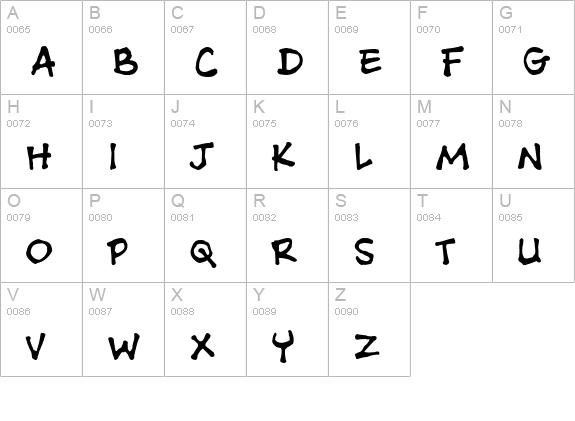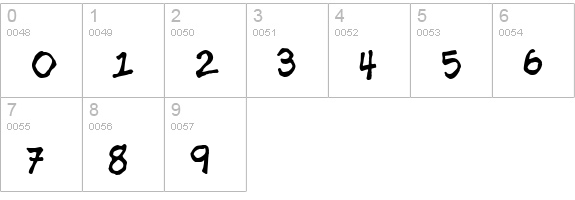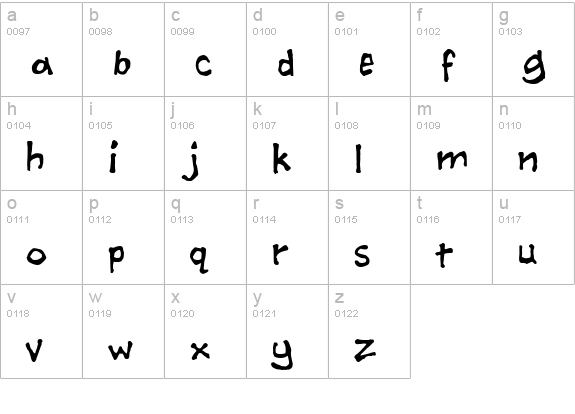
Ashcan BB Font Details
Ashcan BB font is a bold and eye-catching typeface that exudes a sense of urban coolness and modernity. Its edgy and gritty design makes it perfect for projects that require a strong and impactful look. The uneven strokes and irregular shapes give Ashcan BB font a raw and authentic feel, making it a great choice for posters, logos, and branding materials. What's even better is that Ashcan BB font is available for free download at FontsMarket.com. This means that you can easily access this versatile font and use it in your designs without any cost. Don't miss out on the opportunity to add Ashcan BB font to your collection and elevate your projects with its unique style and character.